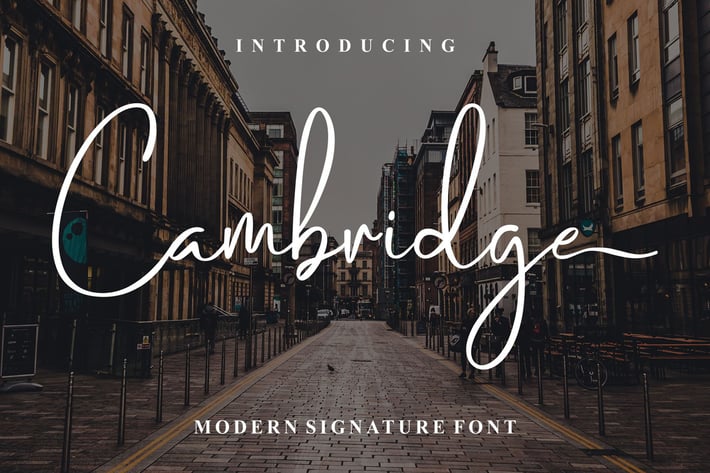
Cambridge | Stylish Handwritten Font
Cambridge is a naturally modern signature font. Itβs perfect for signature logos, quotes, packaging, fashion, wedding invitations or any business that wants to look perfectly modern and elegant.